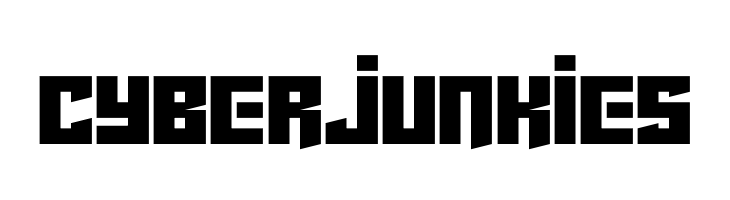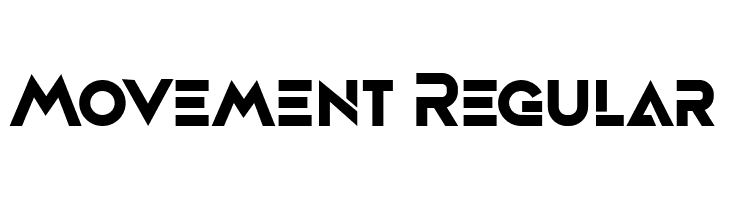
A bold, angular, and italic font with a futuristic and expanded style.
A bold, playful font with a hand-drawn, cursive style.
A bold, futuristic font with rounded edges and expanded width.
A modern, bold, rounded sans-serif font with uniform character width.
A bold, geometric font with a blocky, angular design.
A bold, geometric font ideal for impactful headlines and logos.
A bold, decorative font with numbers and thematic symbols in square blocks.
A classic serif font with modern elegance and high contrast strokes.
A bold, distressed font with jagged, hand-drawn characters.
A modern, geometric font with bold, rounded characters.
A classic serif font with elegant strokes and refined proportions.
A bold, modern font with strong, consistent strokes and a commanding presence.
A bold, geometric font with a futuristic and angular design.
A bold, textured font with a modern and decorative style.
A modern, italic sans-serif font with clean lines and balanced proportions.
A stylish and elegant script font with fluid, cursive strokes and a handcrafted feel.
A bold, dripping font with a spooky, wax-like appearance.
A playful, casual handwritten font with smooth, rounded edges.
A bold slab serif font with thick strokes and rounded edges.
A bold, condensed font with a modern, geometric style.
A bold, modern sans-serif font with clean lines and excellent readability.
A bold, rounded font with a modern and friendly style.
A bold, pixelated font with a retro digital aesthetic.
A modern, geometric font with clean lines and rounded edges, ideal for digital displays and branding.
A refined, cursive script font with an elegant italic slant.
A bold, modern italic font with a dynamic and energetic style.